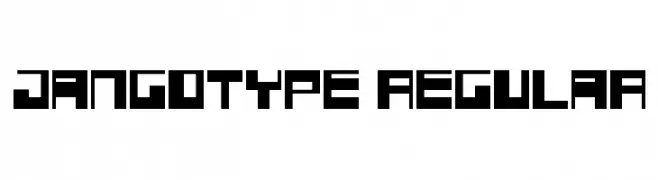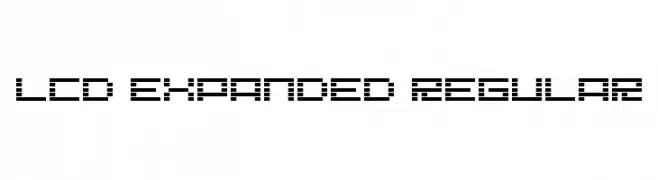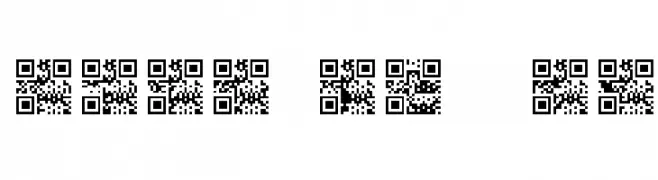
A bold, boxed font with geometric, grid-like characters.
A bold, geometric font with a futuristic and retro aesthetic.
A bold, geometric font with a retro disco vibe.
A pixelated, grid-based font with a digital, futuristic aesthetic.
A bold, geometric font with a futuristic, digital aesthetic.
A QR code-inspired decorative font with each character as a distinct QR symbol.
A bold, geometric font with a modern and futuristic style.